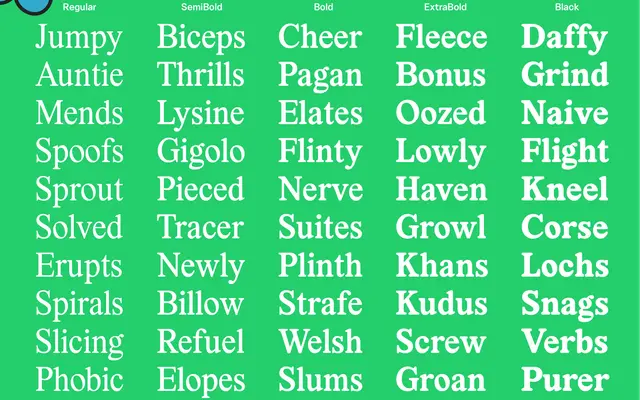
Lastik Variable Family
A variable serif family from That That Type offering a weight axis from Regular to Black across both upright and italic cuts, with broad Latin coverage and a full set of OpenType features.
The family ships as both static and variable fonts, covering five weights from Regular to Black with matching italics, all accessible through a single variable axis. OpenType support is thorough, including small capitals, oldstyle figures, tabular and proportional figures, fractions, superscript and subscript, and two stylistic sets for numerals. Latin Extended-A and -B coverage accommodates a wide range of European languages.
Described explicitly as a variable serif font family, with weight as the variable axis spanning Regular through Black in both upright and italic styles.